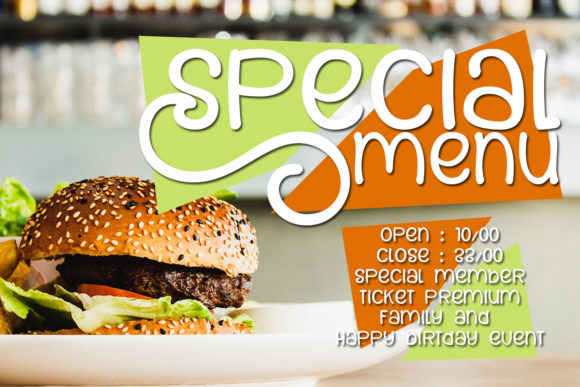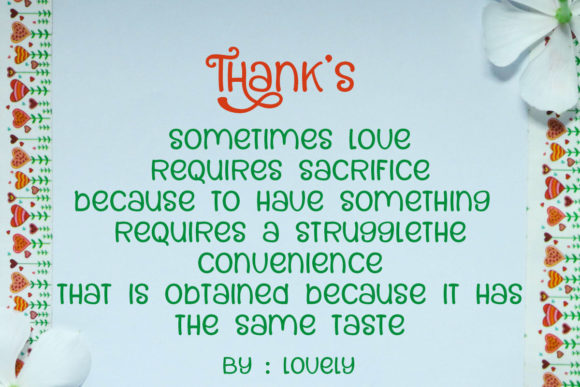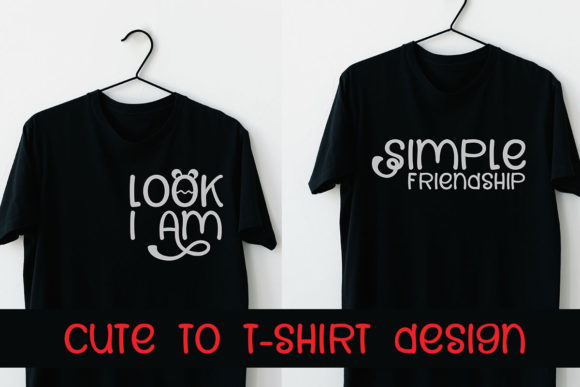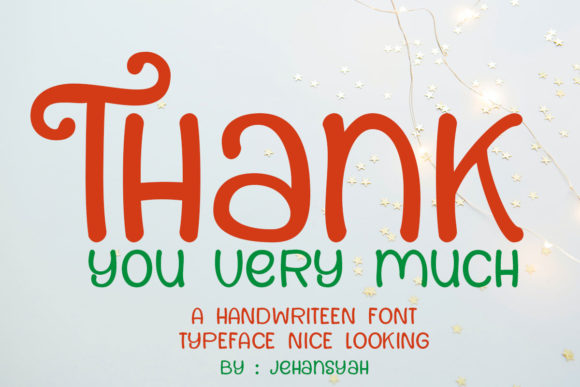
Introduction to Nice Looking Font
Nice Looking is a superb handwritten font.
Simple and easy to use, this font will be very beautiful if you mix it with your various craft designs This font is PUA encoded which means you can access all of the glyphs and swashes with ease.